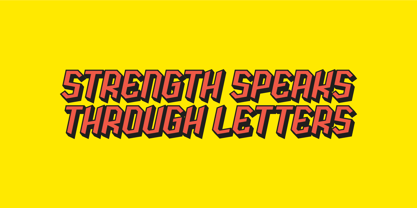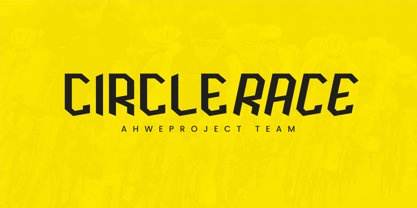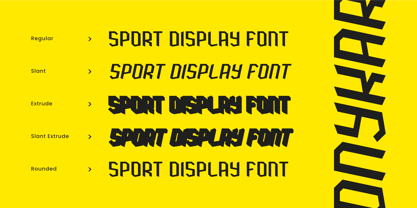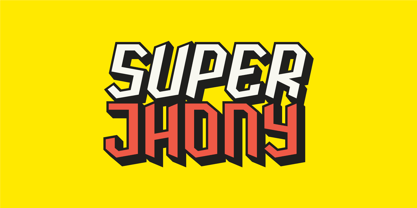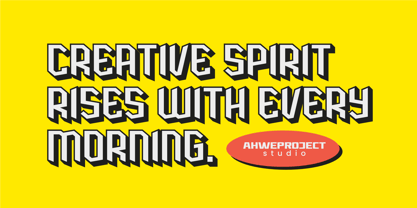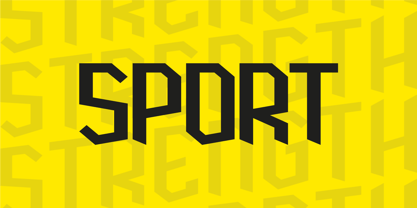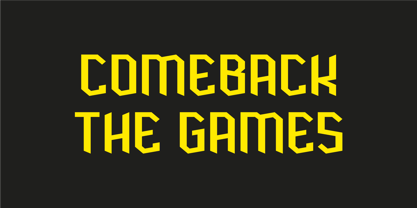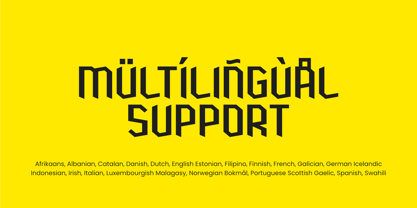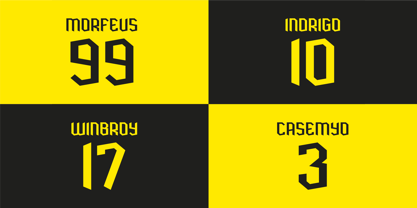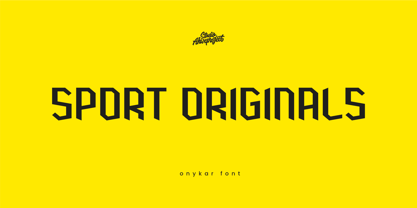
Onykar
by ahweproject
Onykar is a bold sport display font engineered for strength, speed, and victory. Its sharp, angular forms and forward-leaning energy make every word feel like it’s in motion—perfect for teams, tournaments, and high-impact branding that needs to win attention fast.
Designed for instant readability at large sizes, Onykar delivers decisive headlines, powerful logos, and adrenaline-charged posters. Use it for esports and racing graphics, jersey names and numbers, gym branding, YouTube thumbnails, event tickets, stickers, and more—anywhere you want confident, competitive vibes.
Why creatives choose Onykar:
- Dynamic, aggressive letterforms that scream power and momentum
- All-caps impact with matching numerals & punctuation for complete layouts
- Clean spacing and sturdy shapes for crisp results in print and digital
Great for: team branding, match day graphics, merch, badges, scoreboard titles, and sport-centric social posts.
Features:
- Uppercase & lowercase
- Numbers and punctuation
- Multilingual